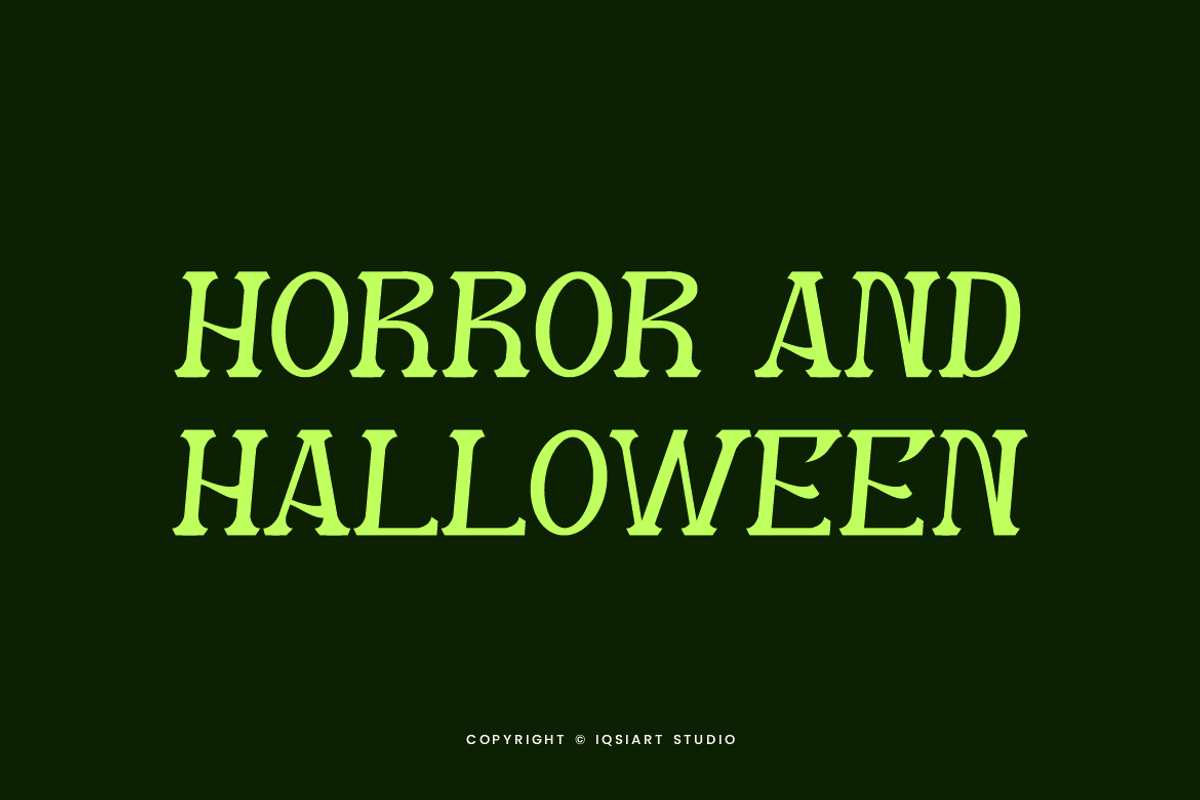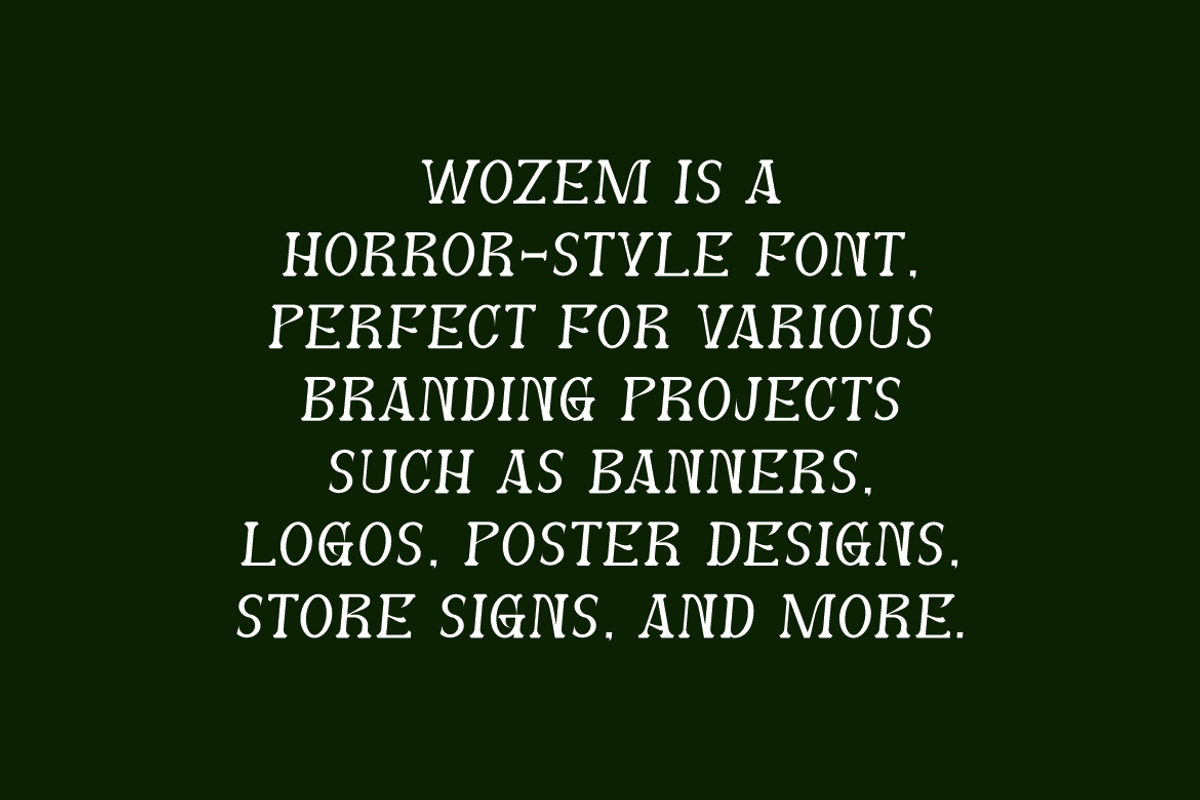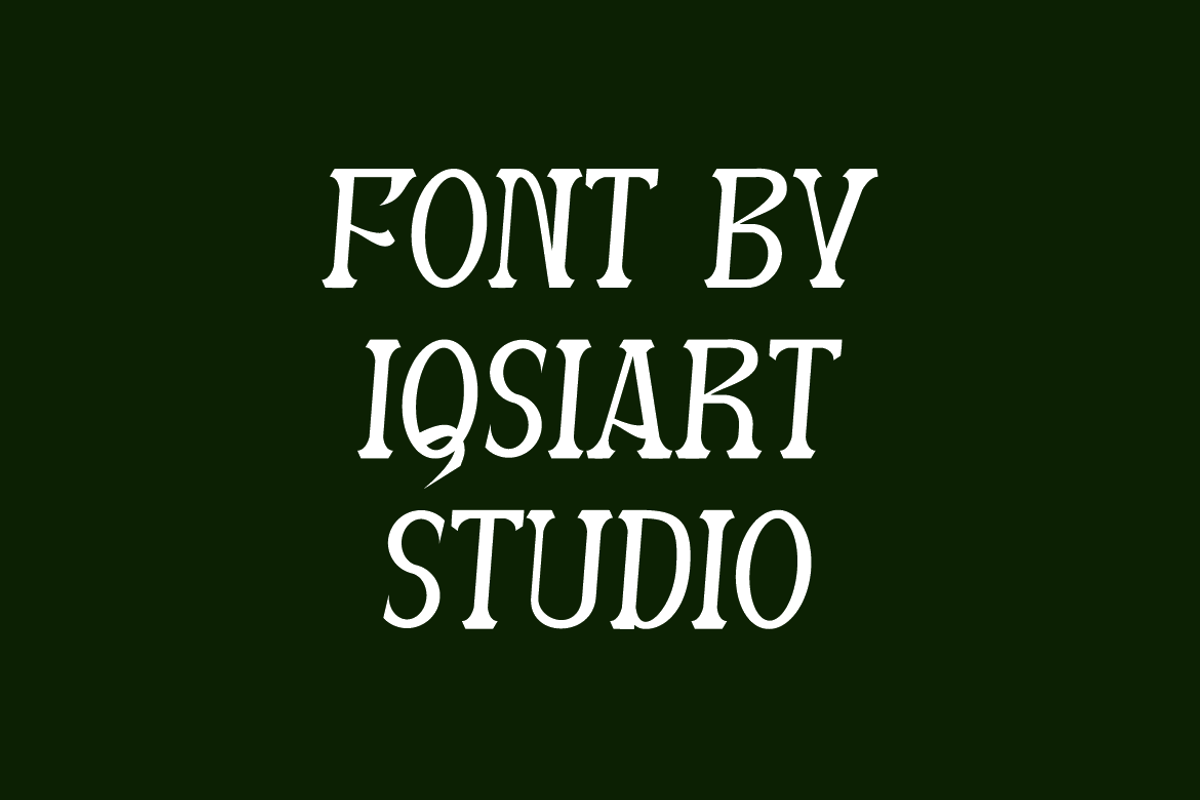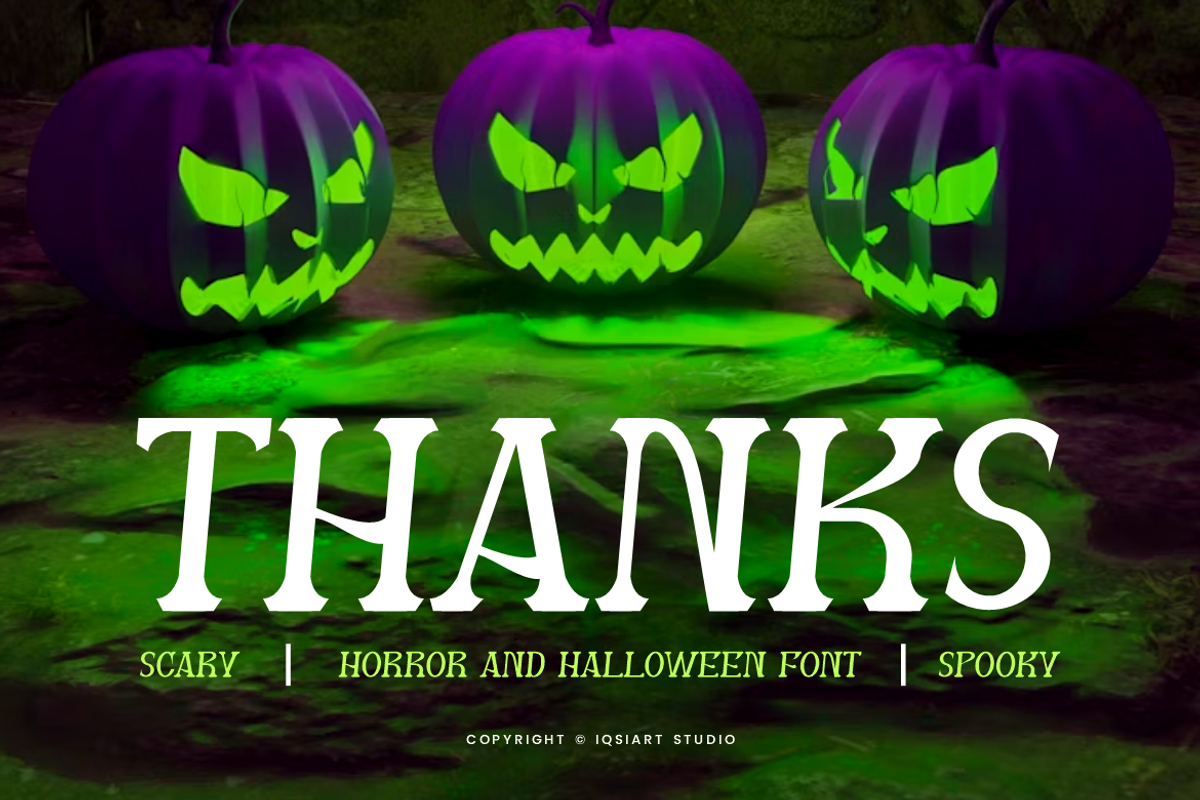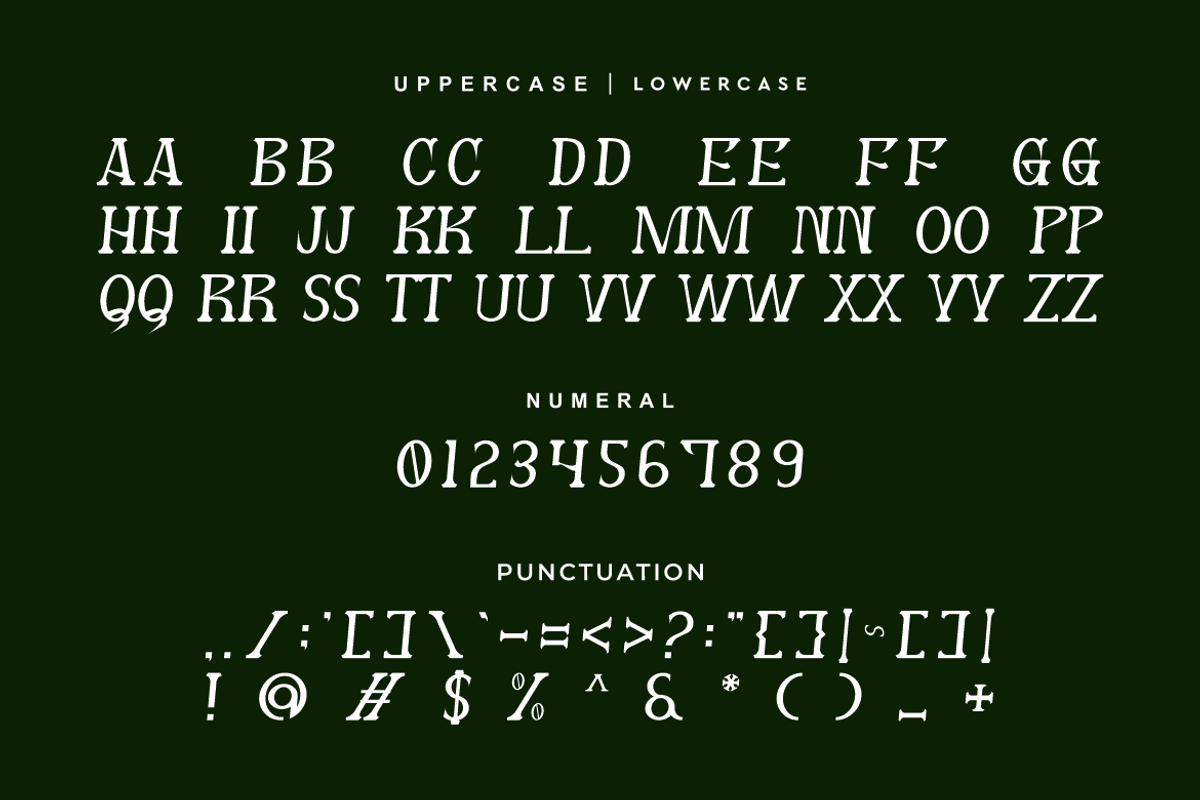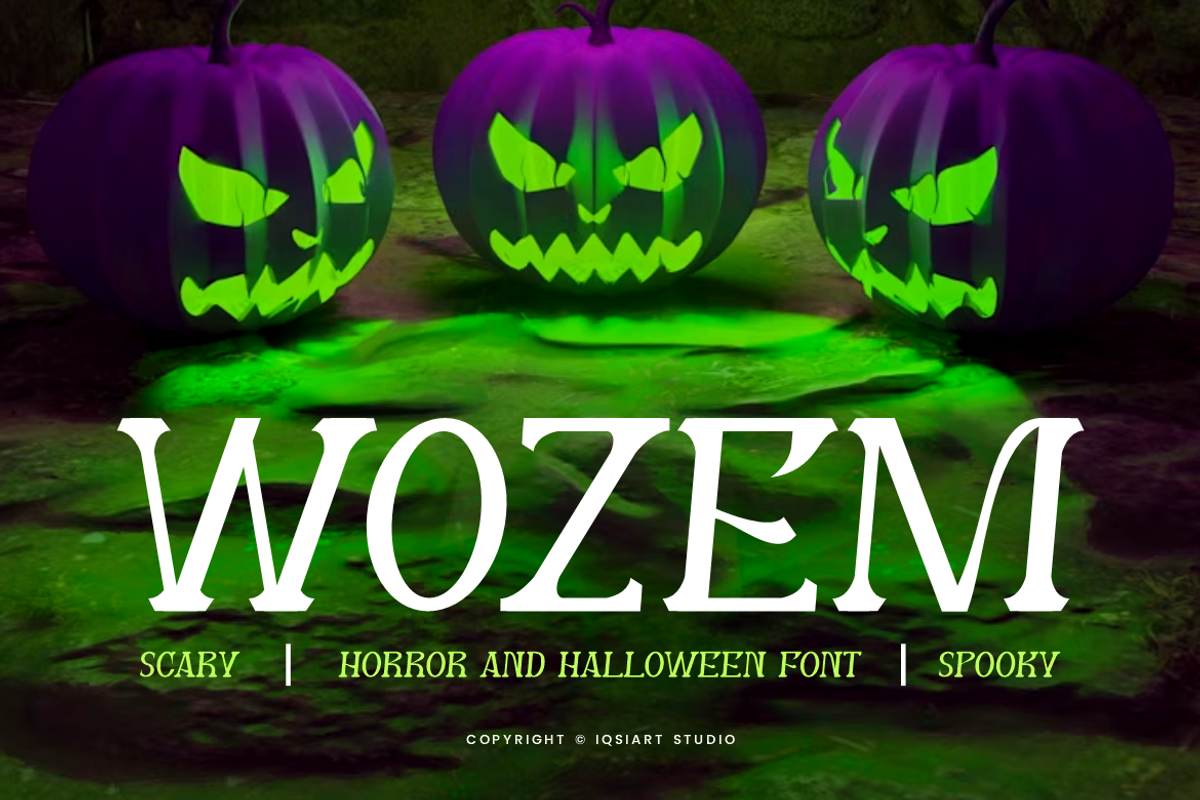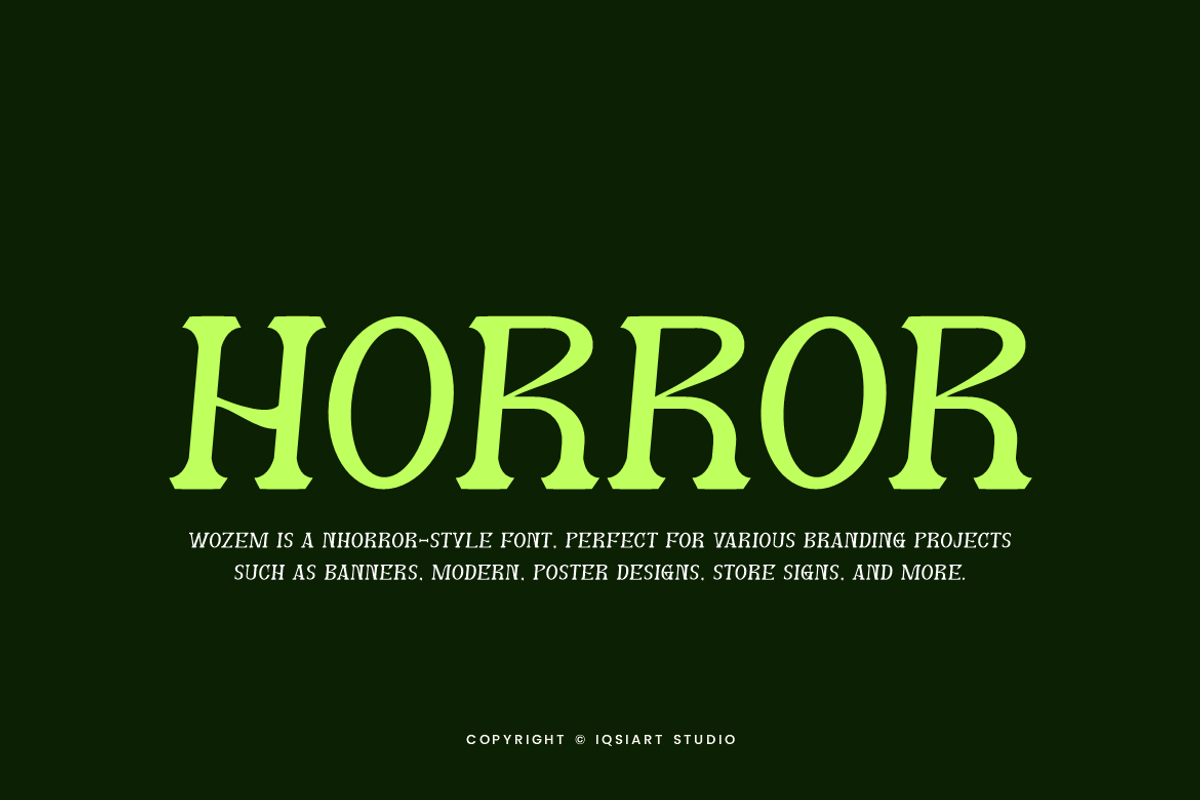
Wozem - Halloween Horror Font
Wozem Font is a serif and authentic display typeface
that suits a variety of design needs. We offer a wide range of themes